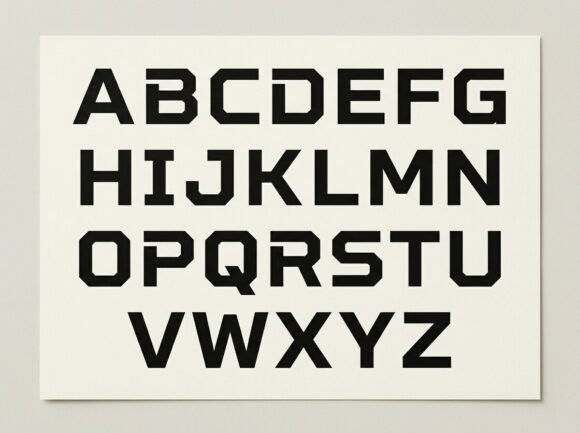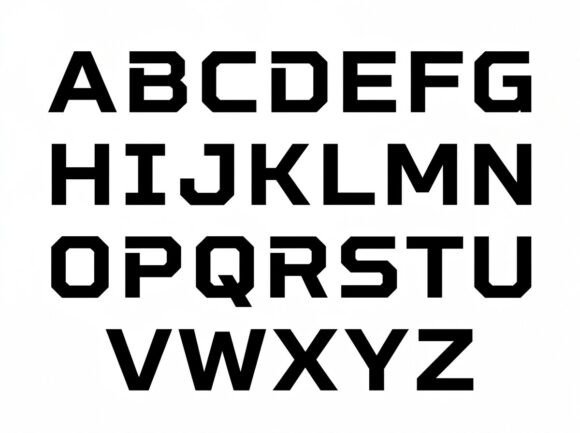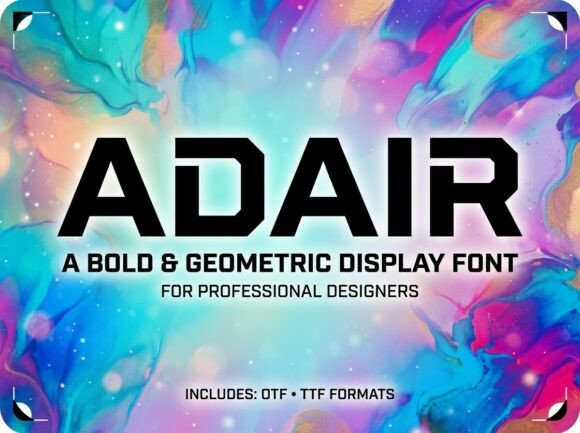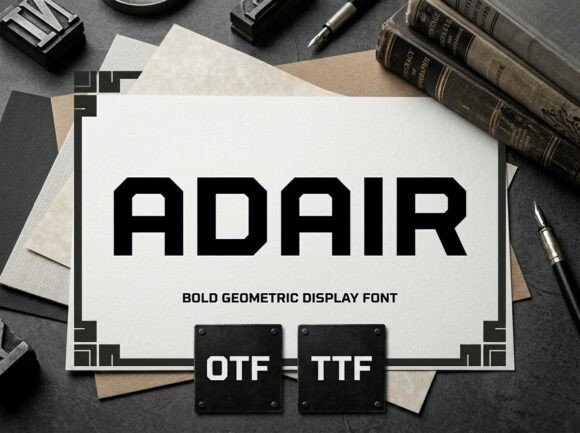
Discover the Stunning Adair Font: A Decorative Display Font for Creative Minds
The Adair Font is specifically designed to be the center of attention, featuring unique artistic elements and a strong visual personality. Its versatility makes it perfect for creators who want to break away from the ordinary and add a touch of sophistication to their designs.
What Makes Adair Font Special?
This font comes with a range of features that make it an excellent addition to any designer’s toolkit. Here are some of the key benefits:
• ✨ Unique artistic elements and strong visual personality
• ✅ Versatile enough for bold headlines, artistic logos, and creative packaging
• ✅ Maintains a professional and polished finish
• ✨ The font’s stunning decorative elements and artistic flair
• ✅ The versatility of the font, making it suitable for various design projects
• ✅ The professional and polished finish, perfect for high-end designs
⚠️ One thing to note is that the Adair Font is an ALL-CAPS (Uppercase Only) display typeface, which means it doesn’t include lowercase letters. This might be a limitation for some designers, but it’s a deliberate design choice to focus on high-impact headlines, logos, and decorative initials.
The Designer Inspiration Behind Adair Font
The Adair Font was designed with the intention of creating a unique and attention-grabbing display font. The designer’s inspiration came from a mix of traditional and modern typography, blending artistic elements with a strong visual personality. The result is a font that’s both decorative and professional, perfect for creative designers and hobbyists.
Q: Is the Adair Font suitable for body text?
A: No, the Adair Font is a decorative display font designed for headlines, logos, and decorative initials. It’s not recommended for body text due to its ALL-CAPS design and artistic elements.
Q: Does the Adair Font include lowercase letters?
A: No, the Adair Font is an ALL-CAPS (Uppercase Only) display typeface and does not include lowercase letters.